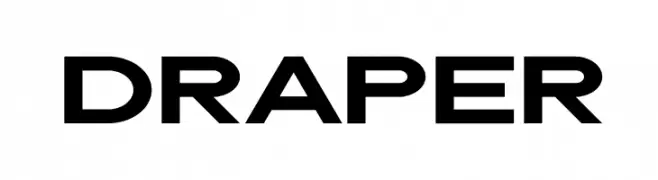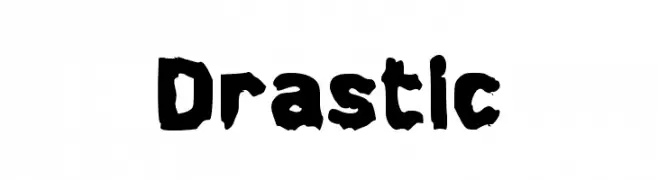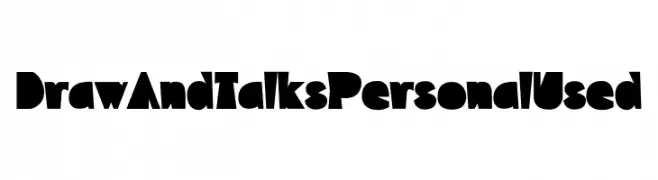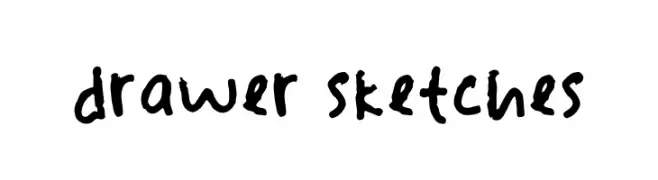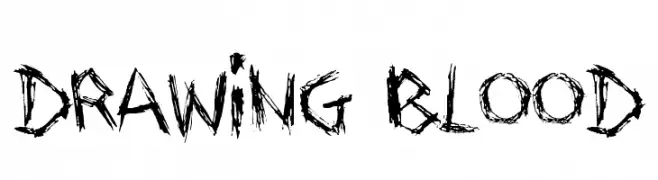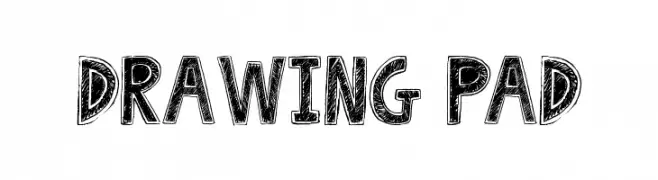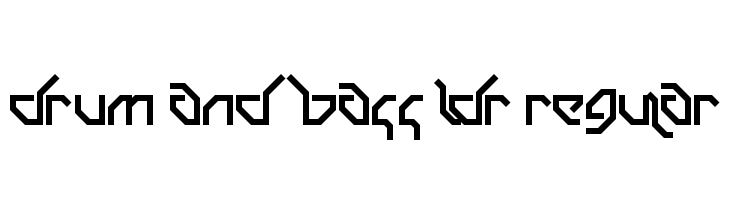
A bold, modern sans-serif font with geometric lines and strong presence.
A bold, rugged font with a distressed, hand-painted look.
A bold, flowing script font with elegant curves and smooth connections.
Bold, geometric decorative font.
A dynamic, sketch-like font with overlapping strokes and artistic flair.
Casual handwritten font with an informal style.
A jagged, hand-drawn font with a chaotic, edgy aesthetic.
Playful handwritten script font.
A hand-drawn, textured font with a playful yet sophisticated style.
A playful, hand-drawn font with a textured, sketch-like appearance.